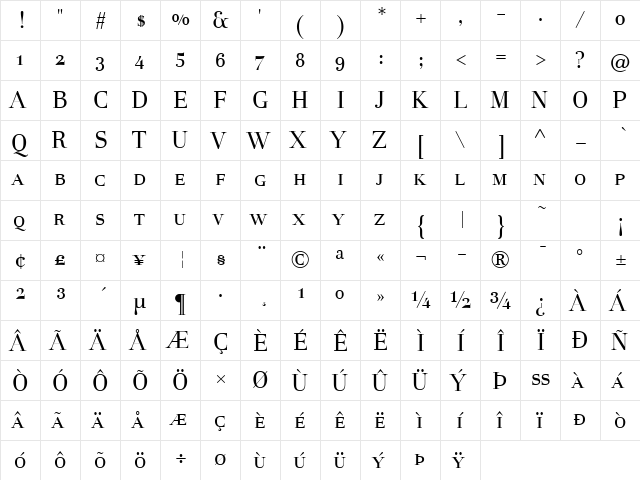
Holmen-RegularSC Regular Font Preview
Holmen-RegularSC Regular
Holmen-RegularSC Regular Font Details
| Foundry | FSI FontShop International GmbH |
| Designer | Per Jorgensen |
Design Context for Holmen-RegularSC Typeface
Holmen-RegularSC offers clean, dependable letterforms without strong stylistic allegiance, making it a practical choice for designers who need flexibility.